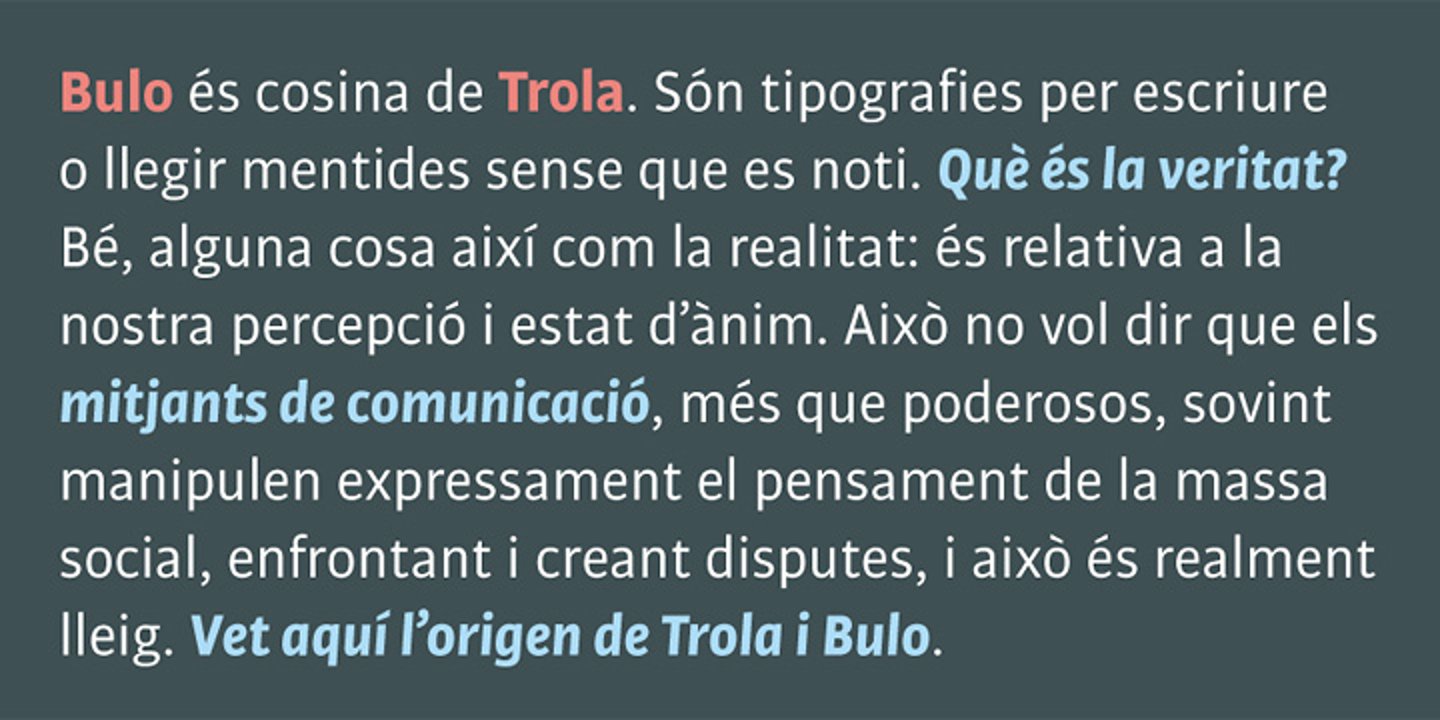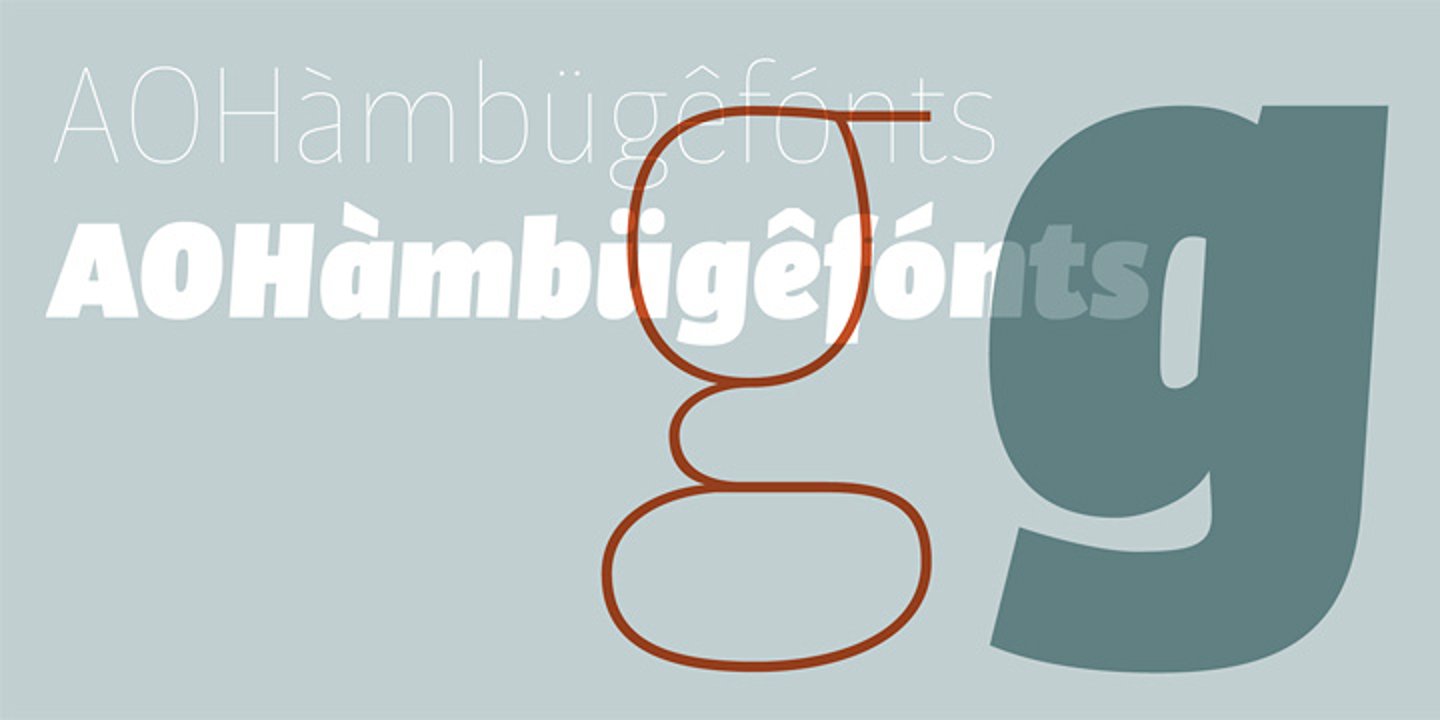
Bulo (hoax in catalan) is a sanserif font that offers a straightforward design. The construction of characters combines a mechanical force with a humanist fragrance. Short ascenders and descenders save space vertically and slightly condensed proportions save space horizontally. A tall x-height promotes readability at small sizes. The idea is to present only a single family for all the hierarchies of information; with enough presence and notoriety in headlines or subheads, while comfortable and transparent in text sizes.